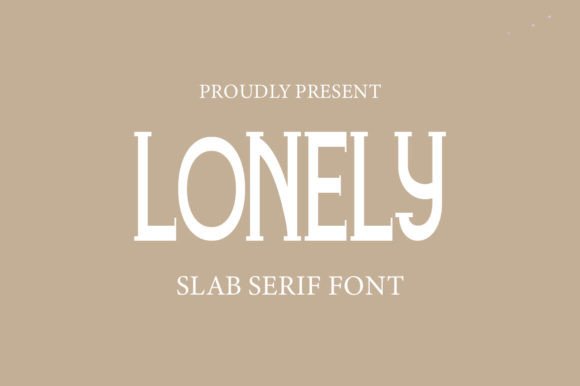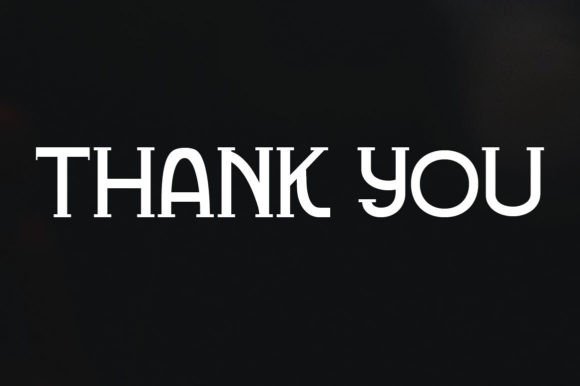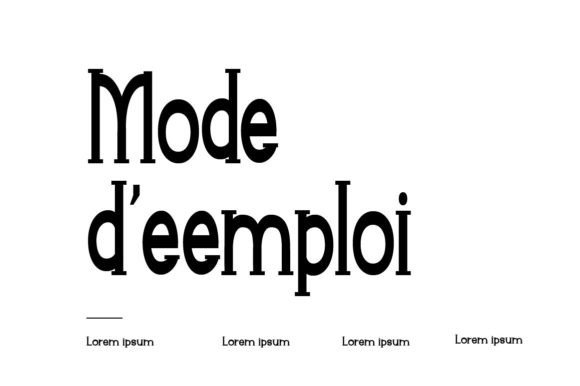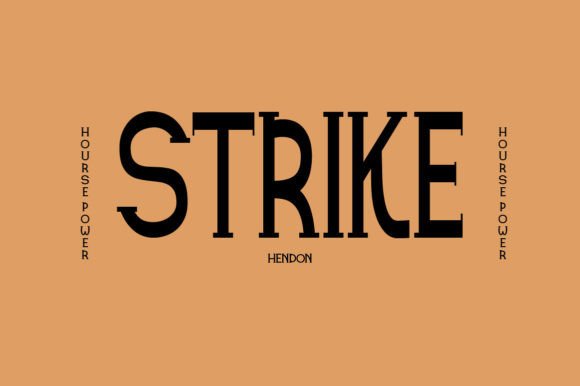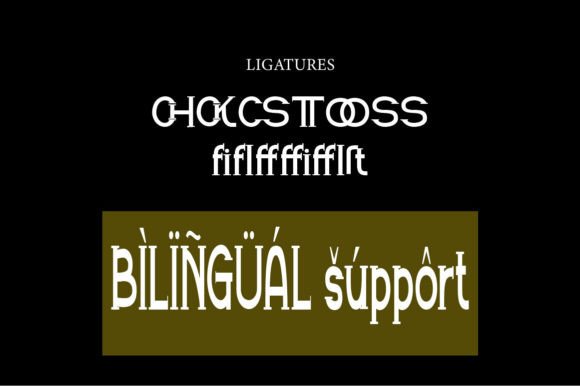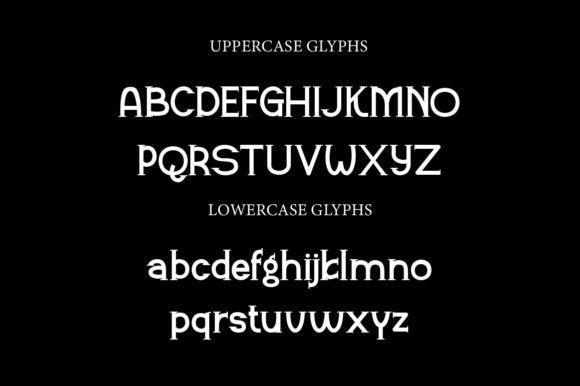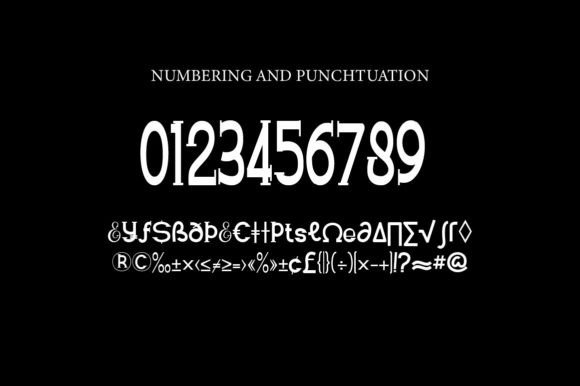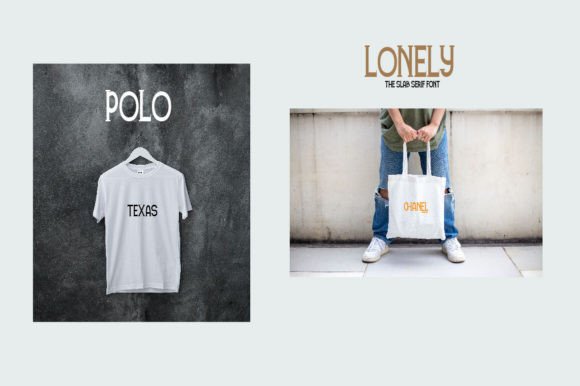
Lonely Font
About Lonely Font
Introduction Lonely is a modern slab serif font. Simple and sharp-looking, this typeface will truly inspire you to create spectacular designs that will impress everyone!